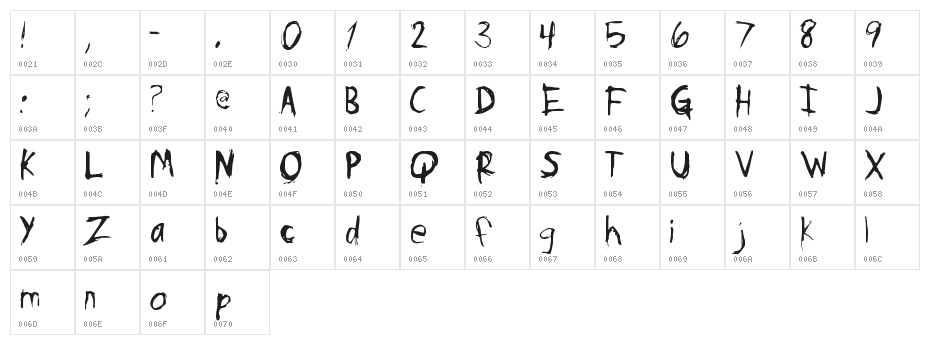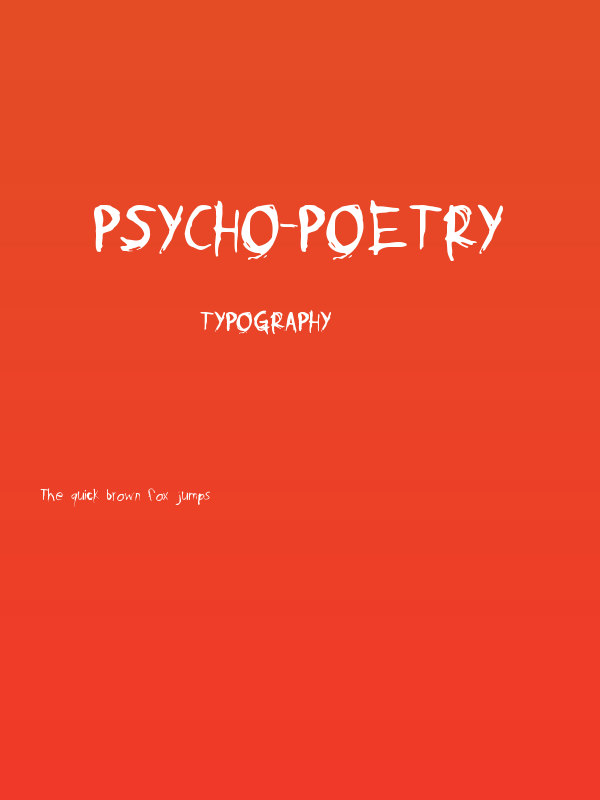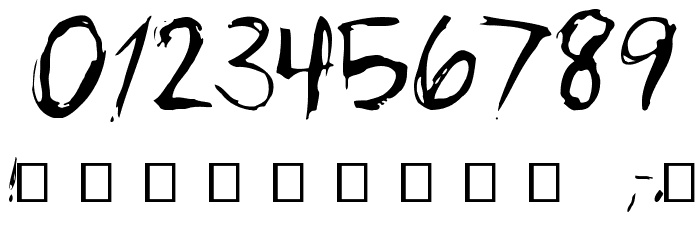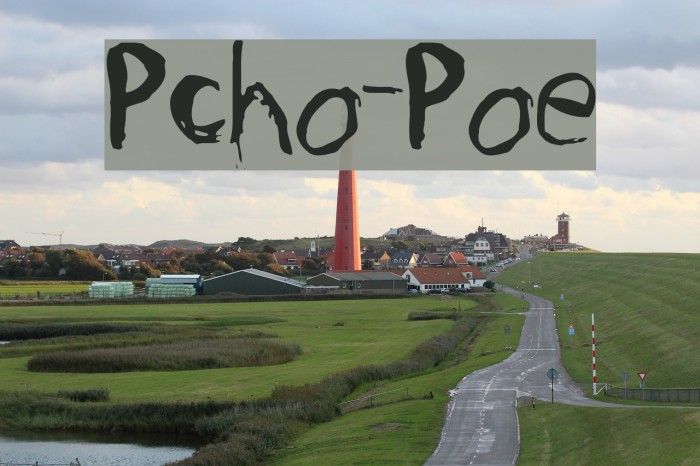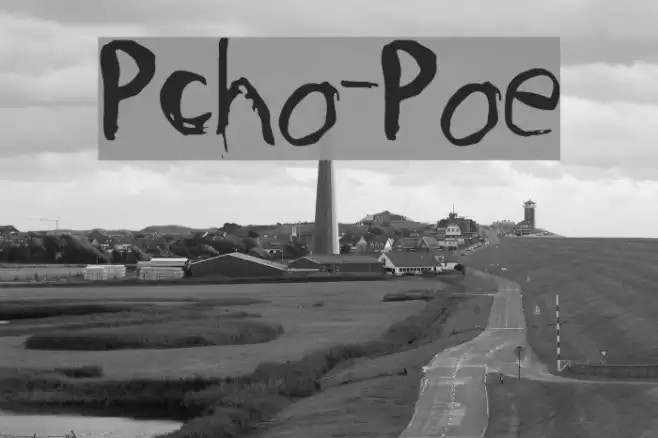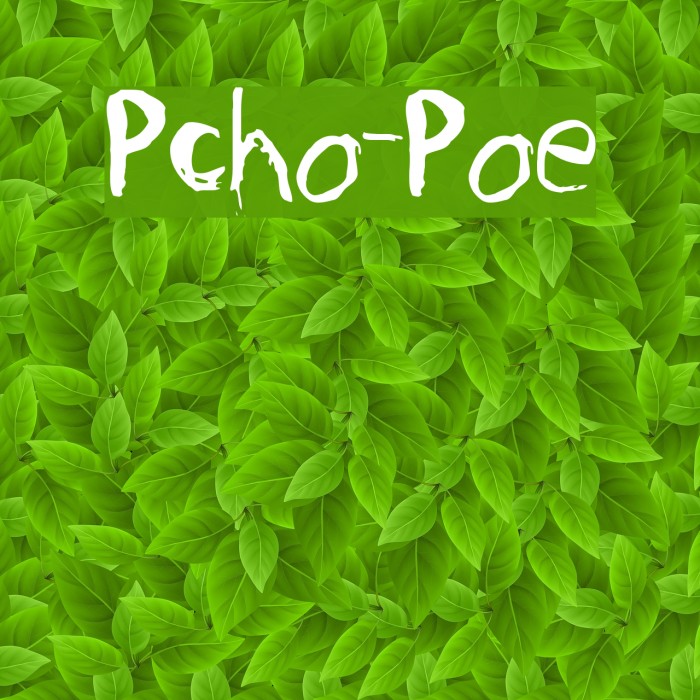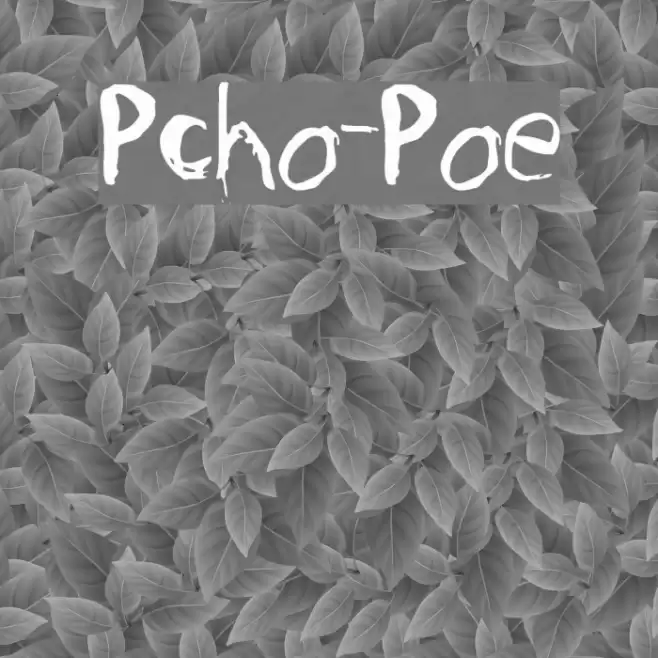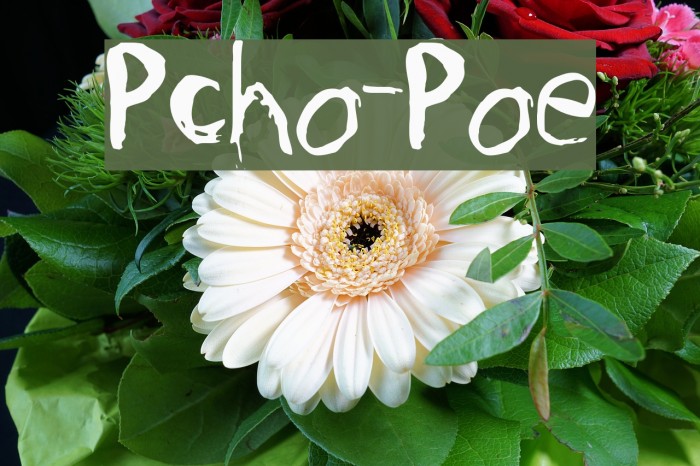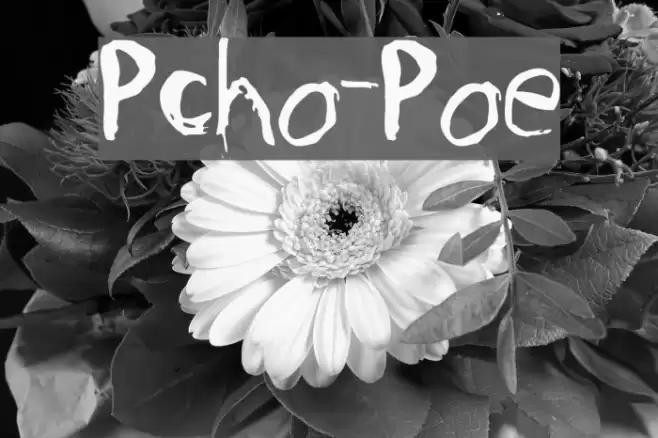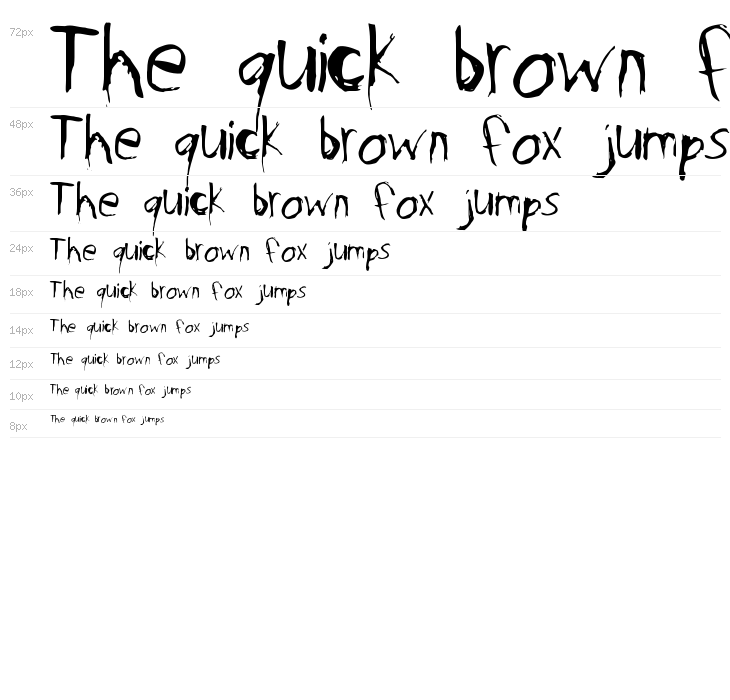
Psycho-Poetry Font
| 用途 | Headlines, Logos, Artistic projects |
| おすすめプロジェクト | Ideal for album covers, posters, artistic branding, and creative projects that require a bold, expressive touch. |